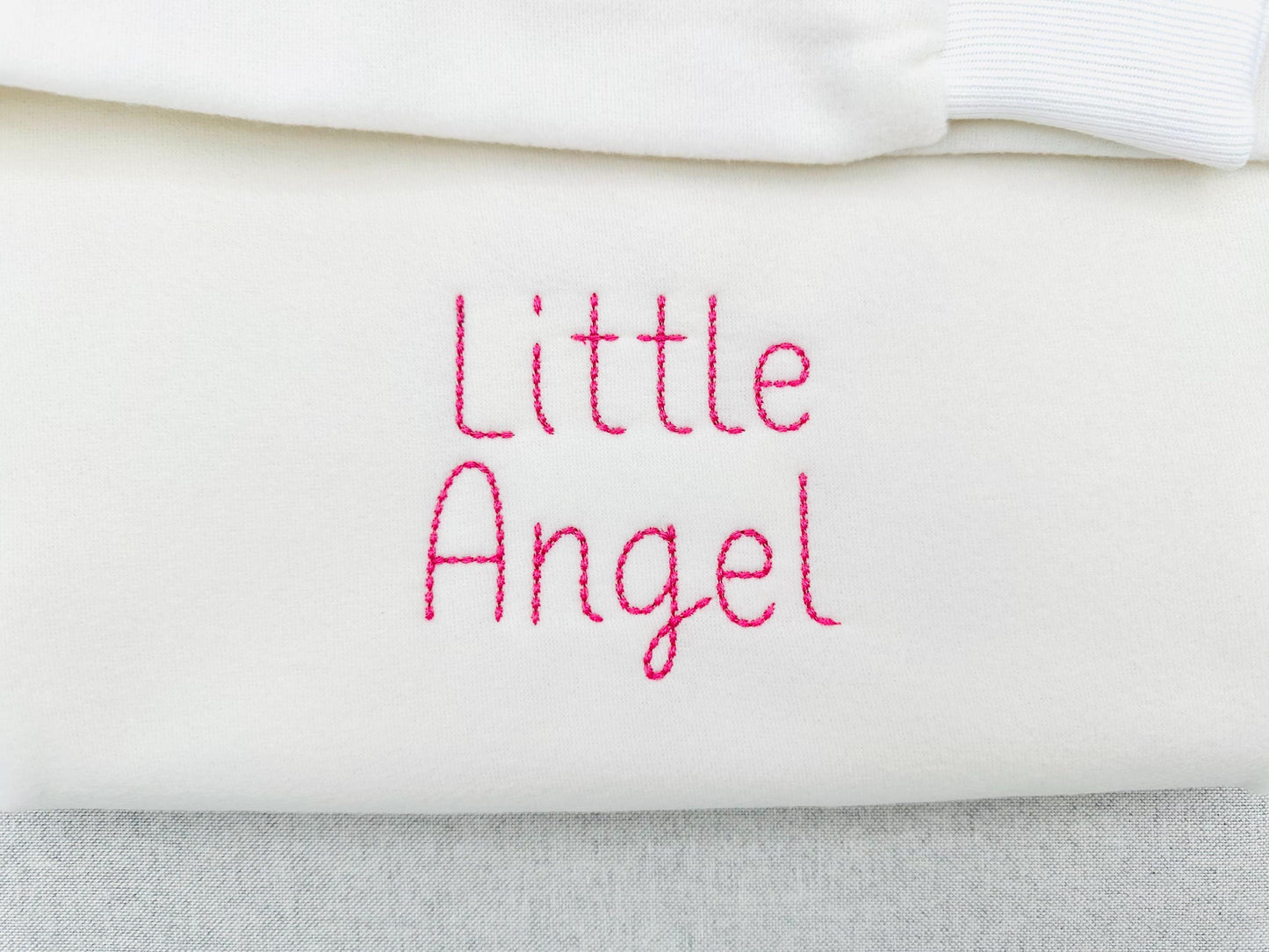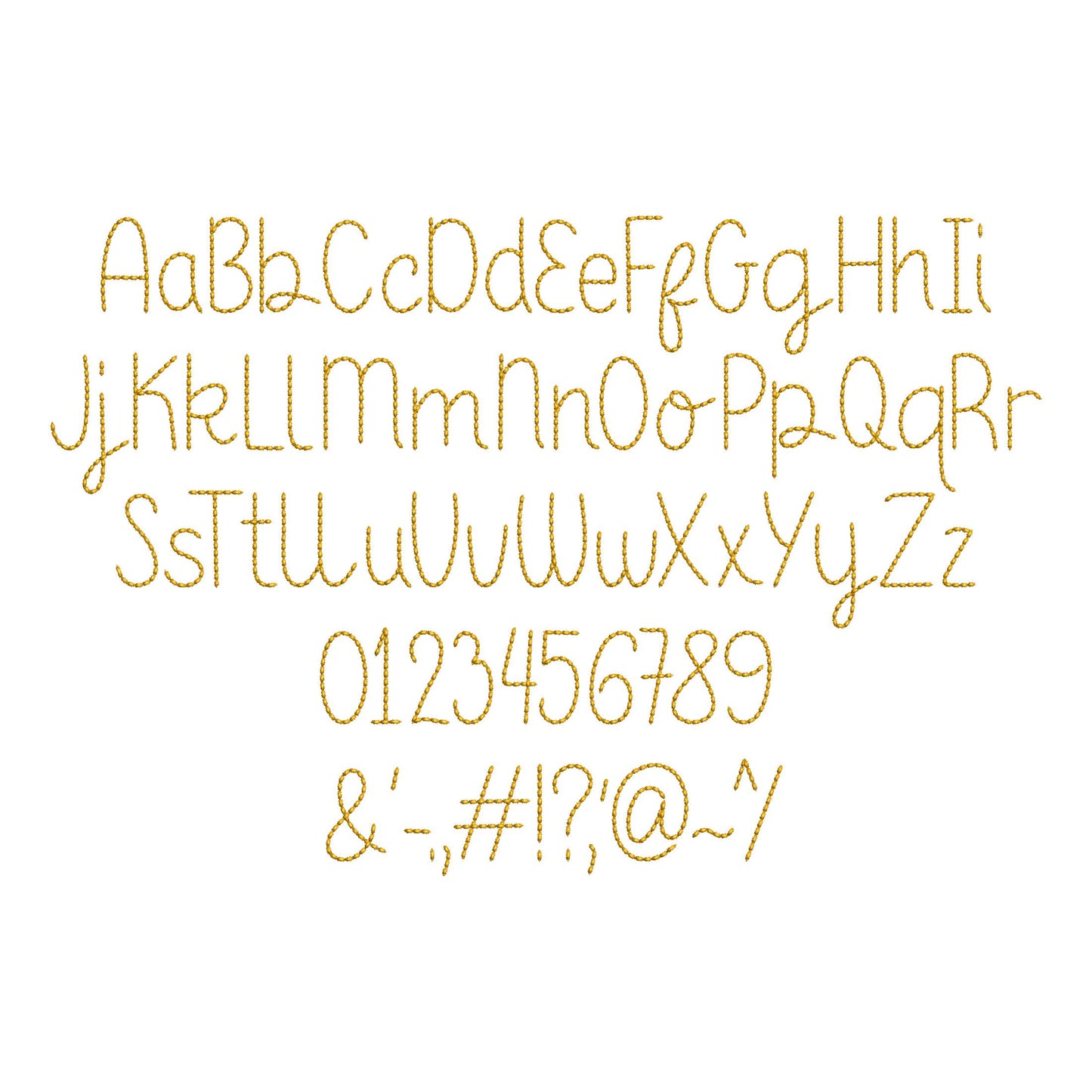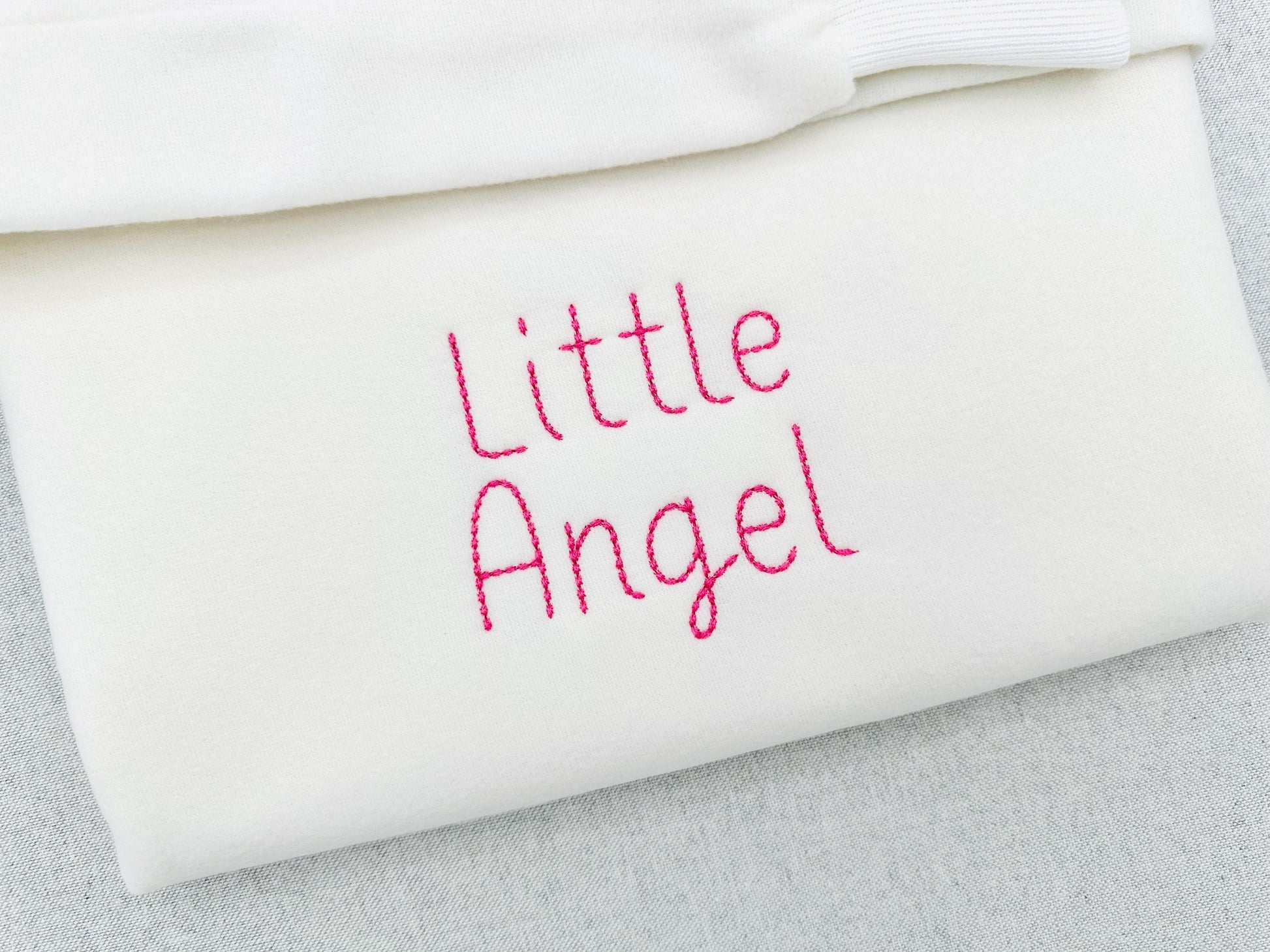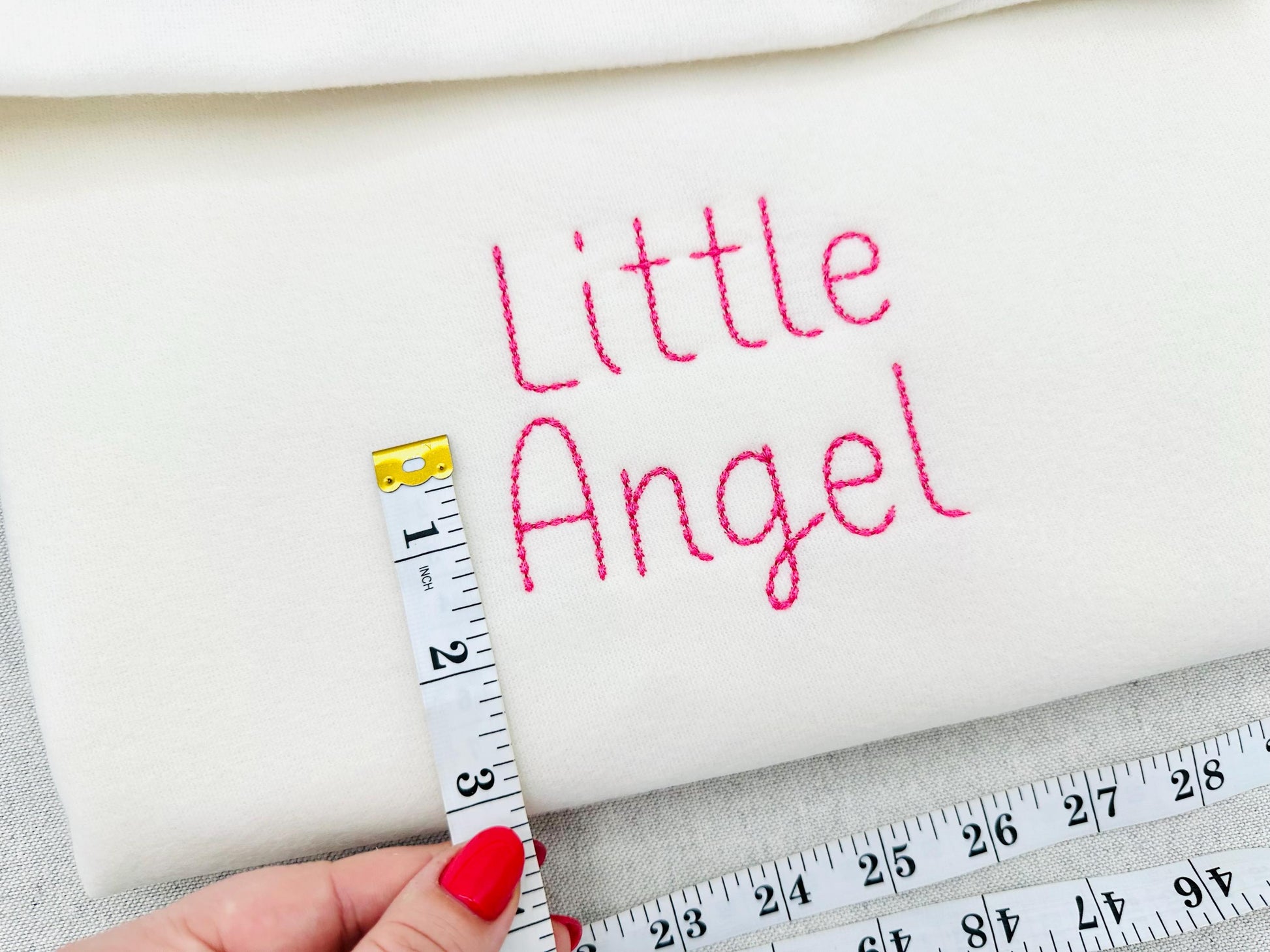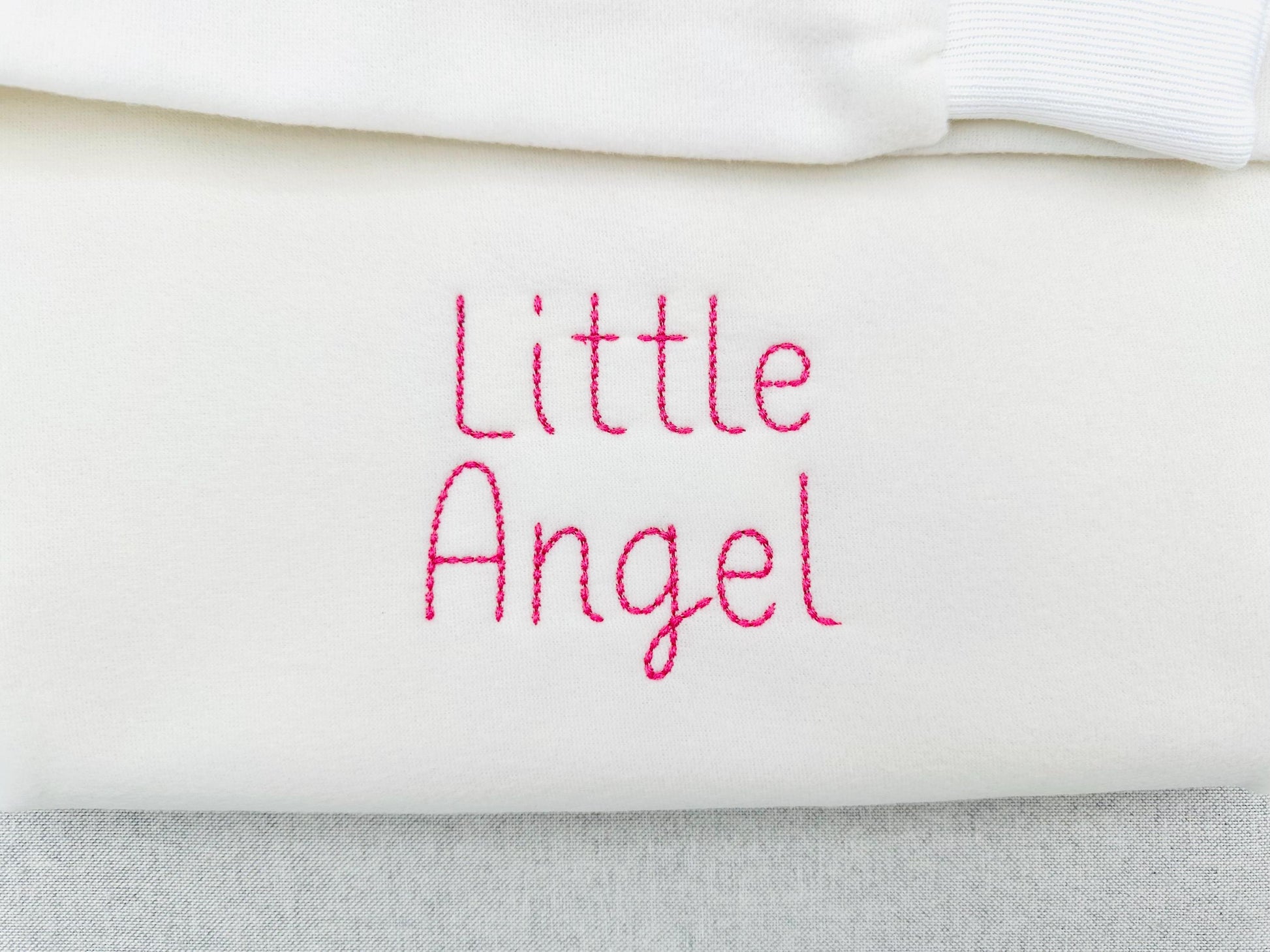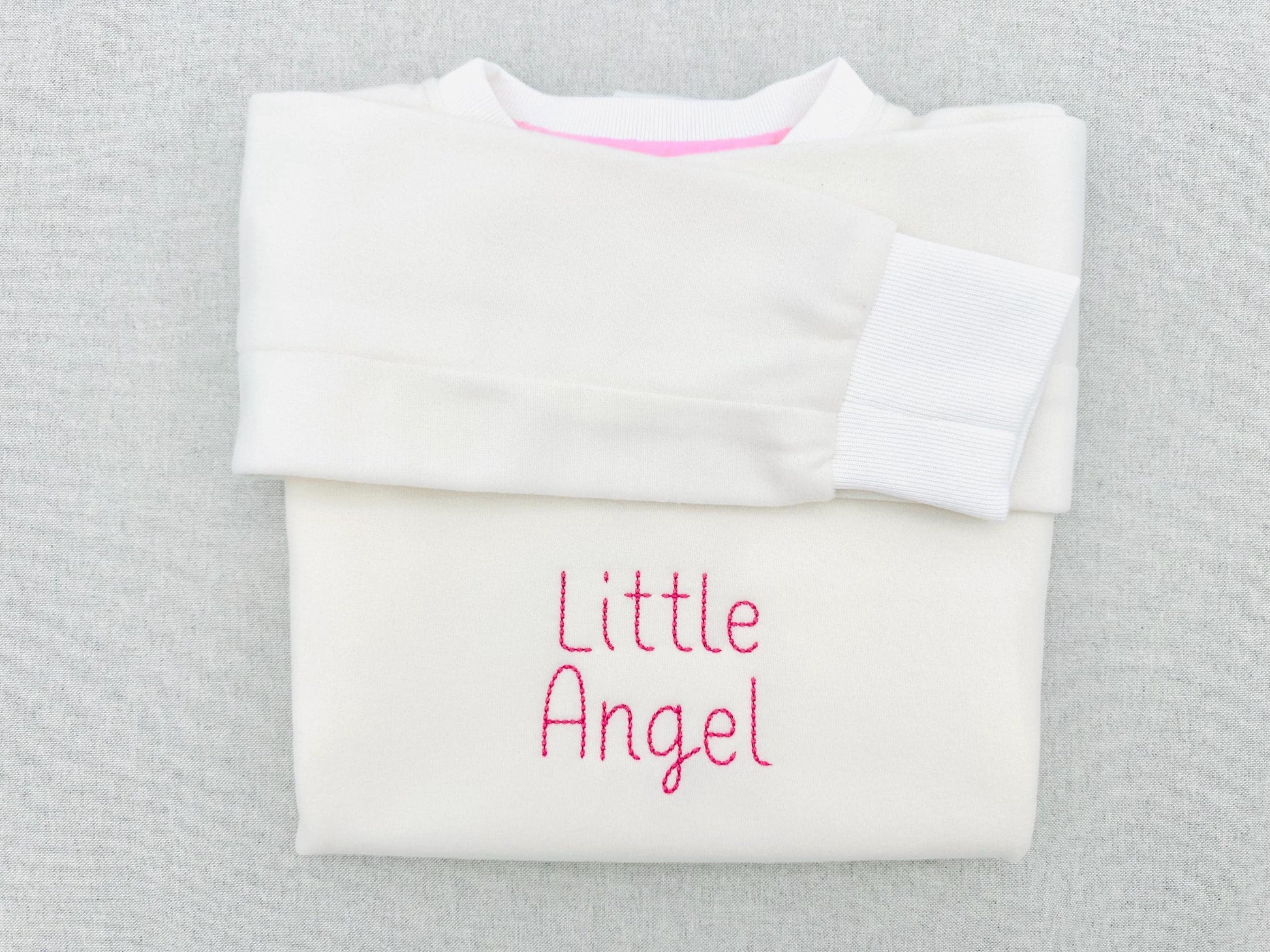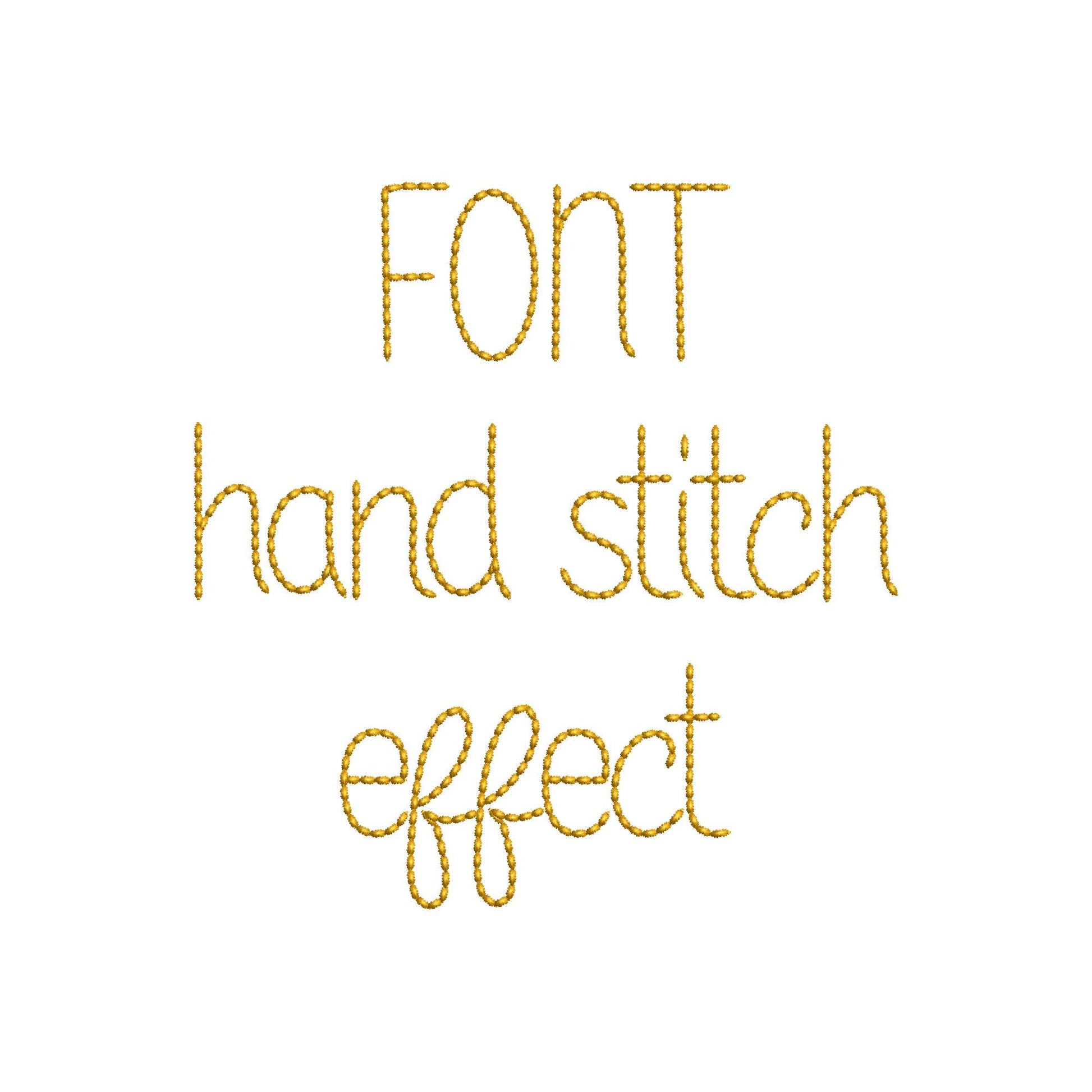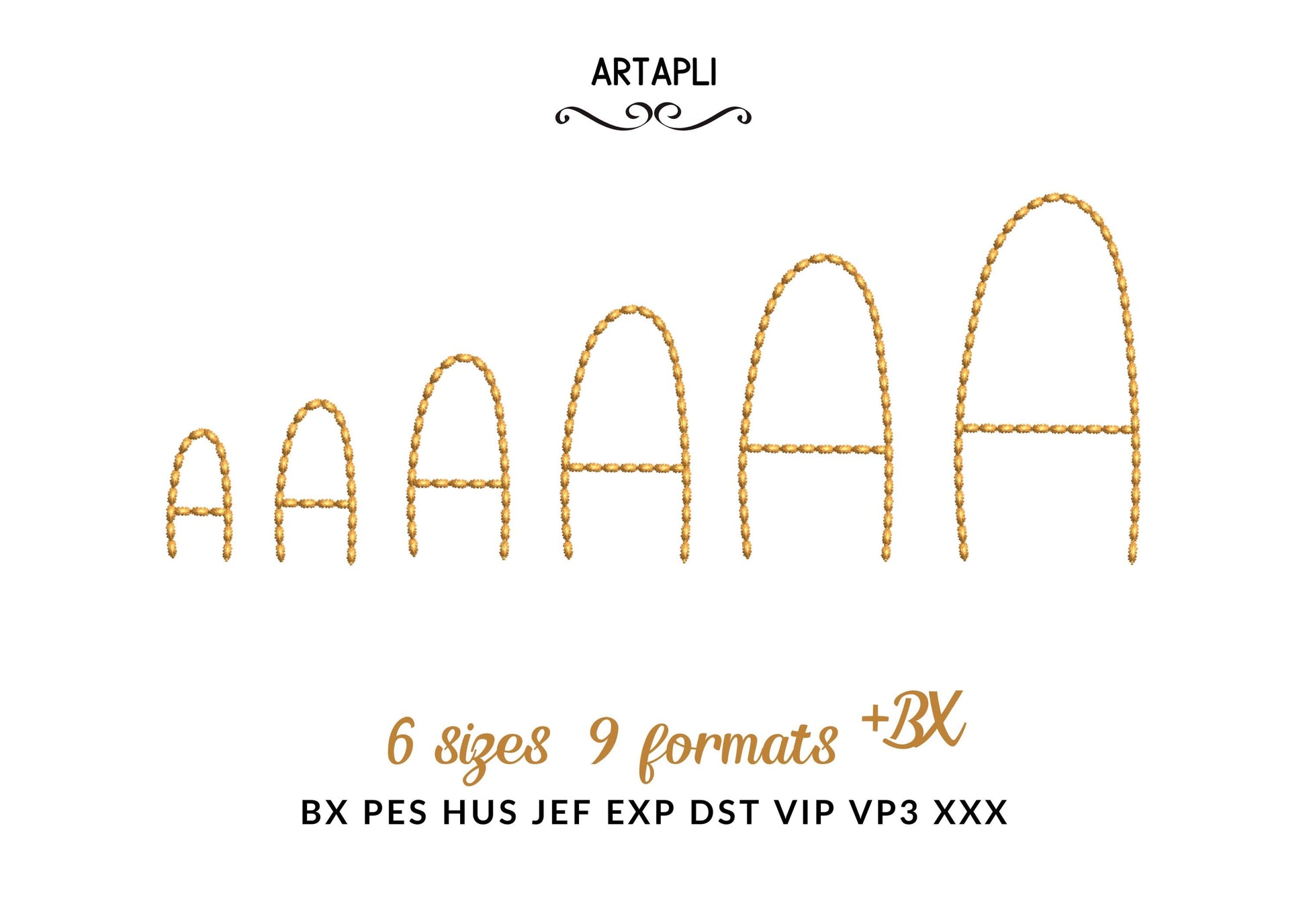
Hand stitch effect Font Sunspun
The letters come in six sizes: 1, 1.3, 1.6, 2, 2.3 and 2.8 inches. Includes uppercase and lowercase letters, numbers 0-9 and punctuation.
- Sunspun hand stitch font: uppercase and lowercase letters, numbers 0-9 and punctuation
- 6 letter sizes, 1 to 2.8 in